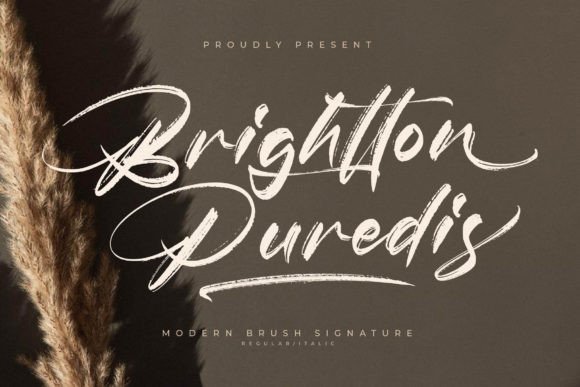
The Designer’s Delight: Brightton Puredis Font
I’ll never forget the time I was working on a project for a client who wanted a stylish and elegant font to match their brand’s upscale image. I spent hours scouring the internet for the perfect font, but nothing seemed quite right. That was until I stumbled upon Brightton Puredis, a stunning handwritten brush font that stole my heart. In this article, I’ll share my love for Brightton Puredis, its features, and how to make the most of it in your designs.
- ✨ Unique and Elegant Style: Brightton Puredis boasts a distinct and well-balanced lettering style that makes it a masterpiece.
- ✅ Versatility: This font is incredibly versatile and can be used for a wide range of design projects, from branding and packaging to social media graphics and more.
- 💫 Handwritten Charm: The font’s handwritten brush style adds a touch of warmth and personality to any design.
While Brightton Puredis is an amazing font, there are a few things to keep in mind:
- 🤔 Legibility at Small Sizes: Like many handwritten fonts, Brightton Puredis can be a bit tricky to read at very small sizes. It’s best used at larger sizes or for headlines.
The Story Behind Brightton Puredis
Brightton Puredis was designed by a talented type designer who wanted to create a font that captured the essence of handwritten elegance. Inspired by classic brush scripts and modern typography, Brightton Puredis is a true masterpiece.
Q: What makes Brightton Puredis so special?
A: Brightton Puredis’s unique and elegant handwritten style, combined with its versatility, makes it a standout font.
Q: Is Brightton Puredis difficult to read?
A: Like many handwritten fonts, Brightton Puredis can be a bit tricky to read at very small sizes. It’s best used at larger sizes or for headlines.